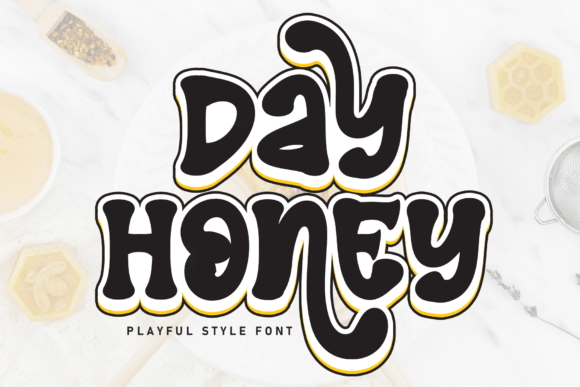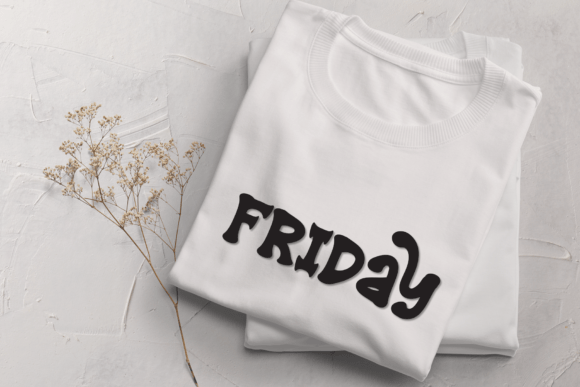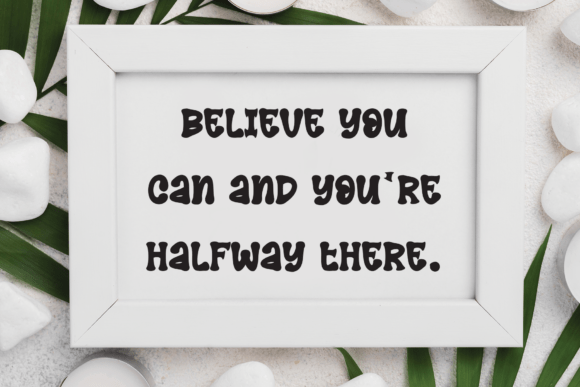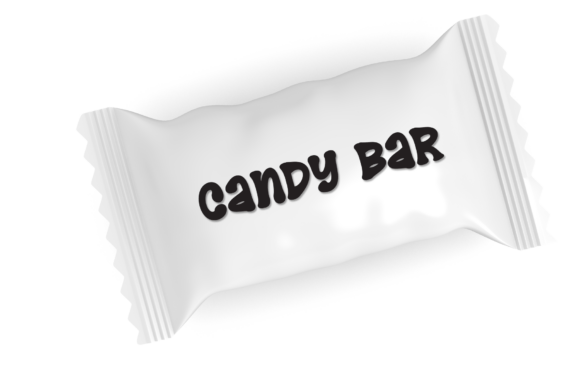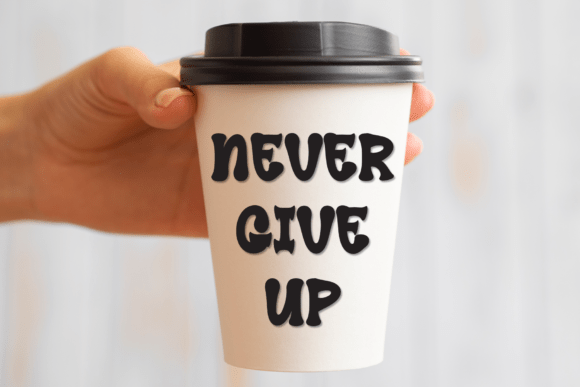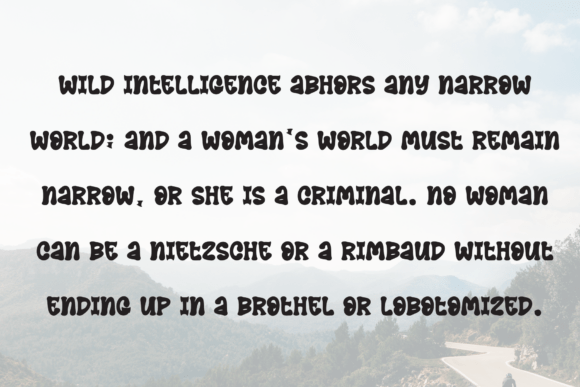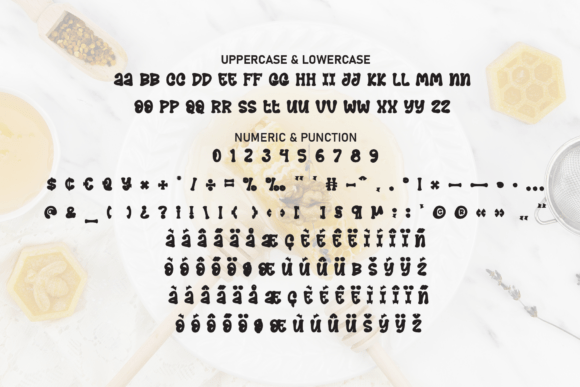
When a Font Speaks Volumes: The Charm of Day Honey Font
Have you ever stared at a blank canvas, struggling to find the perfect font to bring your design to life? We’ve all been there, right? Sometimes, it’s not about having the most complex or trendy font, but about finding one that genuinely speaks to your creative vision. That’s where Day Honey Font comes in – a delightful, modern display font that embodies the essence of relaxed design.
With its clean shapes, soft edges, and well-balanced letterforms, Day Honey Font is the perfect companion for designers looking to add a fresh, friendly touch to their projects. Whether it’s a poster, branding, packaging, or social media graphic, this font is sure to captivate your audience and leave a lasting impression. The Day Honey Font is a valuable addition to any designer’s toolkit, offering a perfect blend of readability and personality.
Day Honey Font Key Features
- Font Family: Day Honey Font is a unique sans-serif font designed for modern designs, with a distinctive warm and inviting feel.
- Unique Characteristics: Day Honey Font features a distinctive rounded shape, with subtle rounded corners and a soft, friendly feel.
Day Honey Font Review
As a designer, I’m always on the lookout for unique and stylish fonts to add to my collection. The Day Honey Font caught my eye with its playful and modern aesthetic. ✨
- The Day Honey Font is incredibly versatile and can be used in a variety of design projects, from logos to web headers.
- The font’s rounded edges and smooth curves give it a friendly and approachable feel, making it perfect for branding and marketing materials.
- The font’s scalability is impressive, looking great in both large and small sizes.
- The Day Honey Font is fully customizable, allowing designers to adjust the color, size, and style to fit their needs.
- The Day Honey Font may not be the best choice for formal or professional designs, as it can come across as too playful or childish.
- The font’s rounded edges can sometimes make it difficult to read in certain contexts, particularly in small sizes or at a distance.
- The font’s customization options can be overwhelming for beginners, requiring some experience with design software to get the most out of it.
Overall, the Day Honey Font is a solid choice for designers looking for a modern and playful font. While it may have some limitations, its versatility and customizability make it a great addition to any design collection.
Day Honey Font Practical Application Guide
For optimal results, use Day Honey Font in titles and headings to create a cohesive and modern look.
Use Day Honey Font to add a touch of elegance to your graphics and illustrations.
Use Day Honey Font to create visually appealing presentations and documents.
Day Honey Font is ideal for:
- Editorial and publishing content
Remember to use Day Honey Font consistently throughout your design to create a cohesive and professional look.